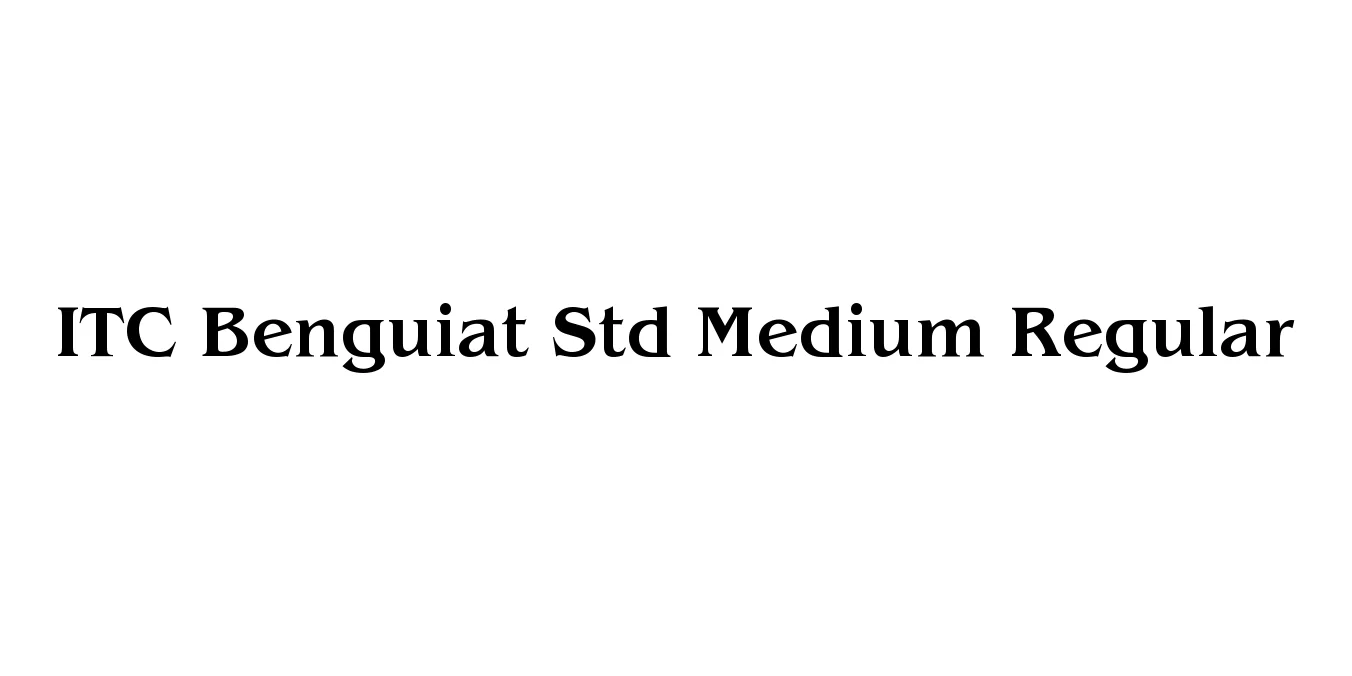
ITC Benguiat Std Medium Regular
Designed by Ed Benguiat
| Similar Fonts | Korinna, Souvenir, Belwe, Windsor |
ITC Benguiat Std Medium Regular was designed by the legendary typographer Ed Benguiat and released by the International Typeface Corporation in 1978. Inspired by the flamboyant and organic forms of the Art Nouveau movement, the typeface features a high x-height and unique, decorative flourishes that distinguish it from traditional serif fonts. Its personality is both elegant and slightly eccentric, capturing the essence of late 20th-century graphic design trends.
The font became a cultural icon throughout the 1980s, famously appearing on the covers of Stephen King novels and Choose Your Own Adventure books. In modern times, it has experienced a massive revival due to its use in the title sequence of the hit series Stranger Things. This has solidified ITC Benguiat as the go-to choice for designers looking to evoke a sense of nostalgia, mystery, or vintage Americana in their creative projects.
ITC Benguiat Std Medium Regular Best Uses
Perfect for book covers, movie titles, and branding projects requiring a retro feel.
Excellent for magazines and headers where a strong personality is needed.
Distinctive enough to serve as the base for a recognizable brand identity.